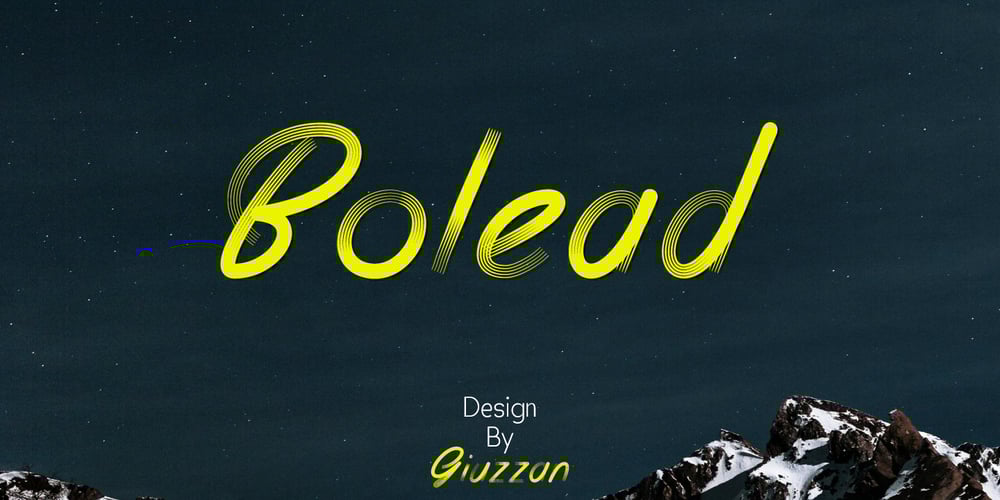
Bolead Font Family was designed by Muhamad Fauzan and published by Giuzzan. Bolead contains 1 styles and family package options. Bolead is a sleek display font that balances elegance with modernity. Its fluid lines and subtle curves exude sophistication, making it perfect for branding, editorial design, and more. Make a statement with Bolead’s timeless appeal and distinctive character.